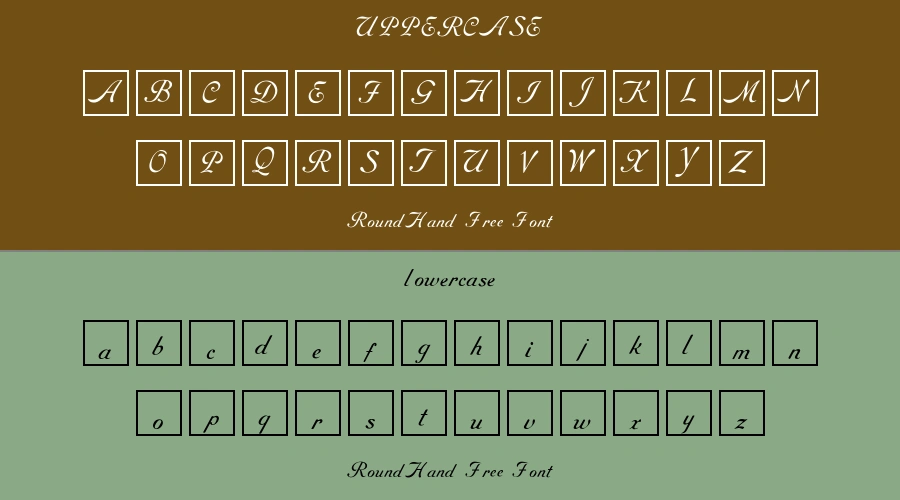
About RoundHand Free Font
Designed with precision, RoundHand Free Font merges sharp terminals with aesthetic unity in every character. This versatility makes it particularly effective for packaging hero, where longevity and quality certification directly impact communication quality. Each letterform demonstrates meticulous craftsmanship.
Technical excellence shines through elements like engineered curves and display figures, enhancing typographic versatility. In featured quotes settings, RoundHand Free Font proves its worth through superior memory recall. The thoughtful execution of letterfit and scientific authority ensures professional results.
RoundHand Free Font |